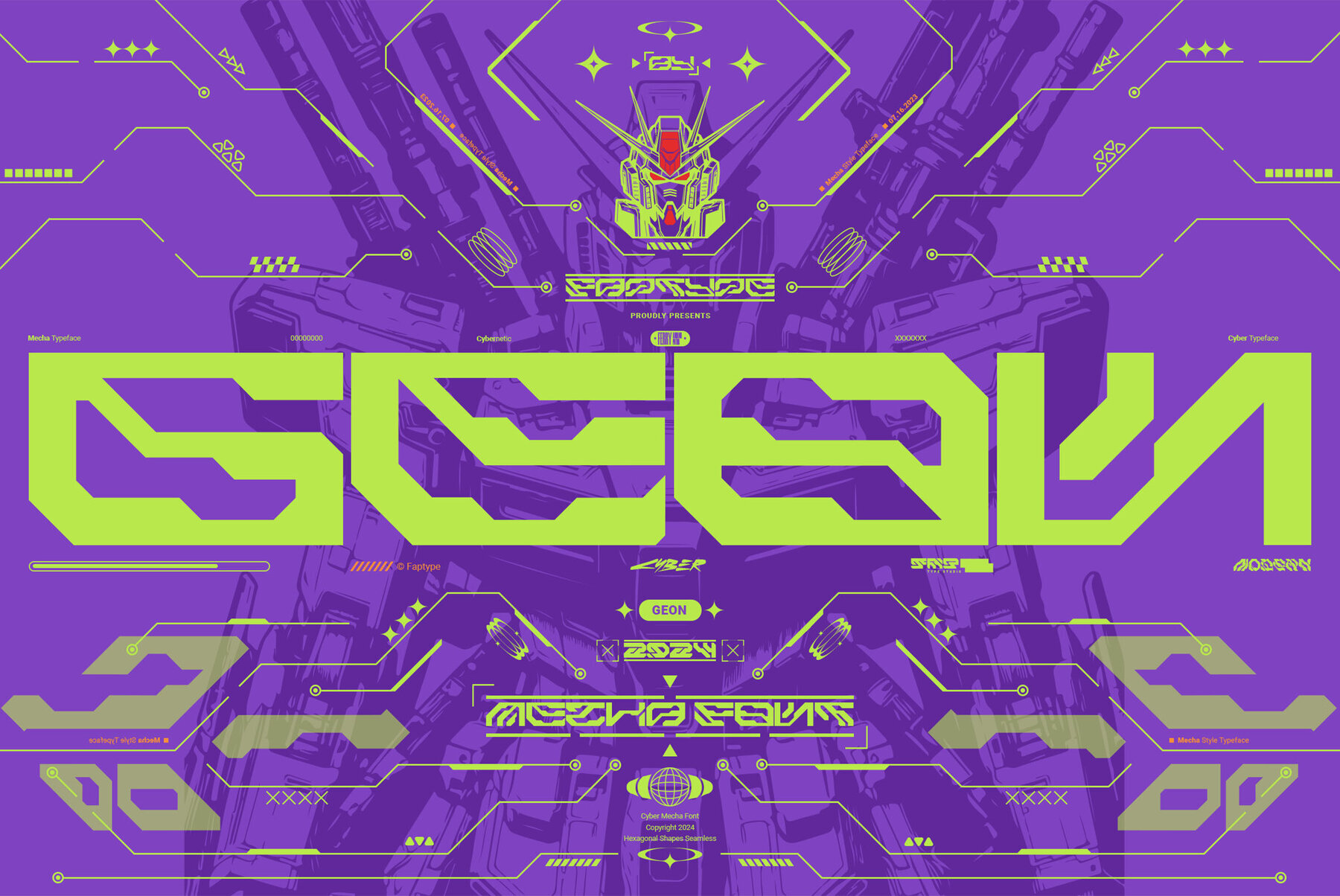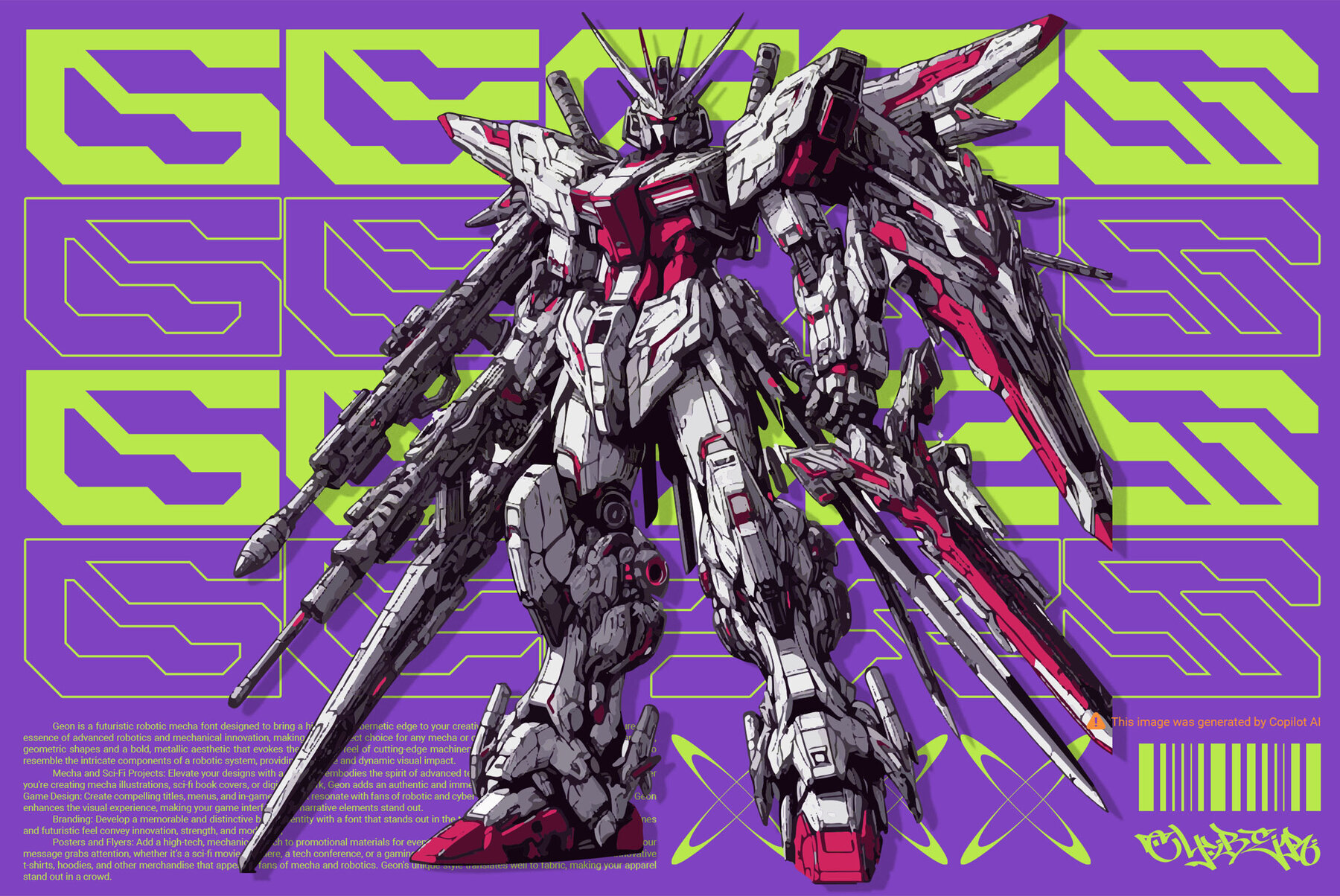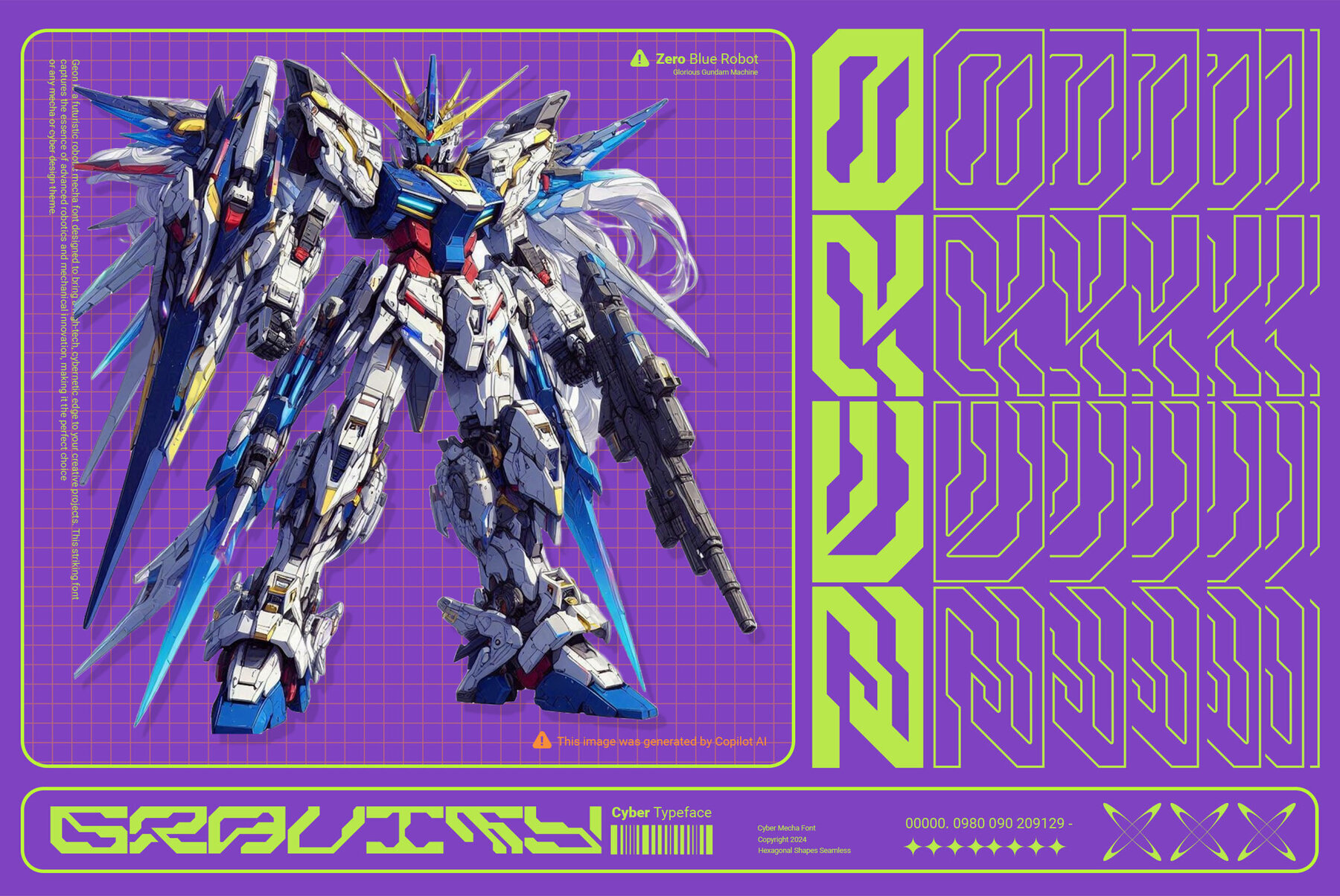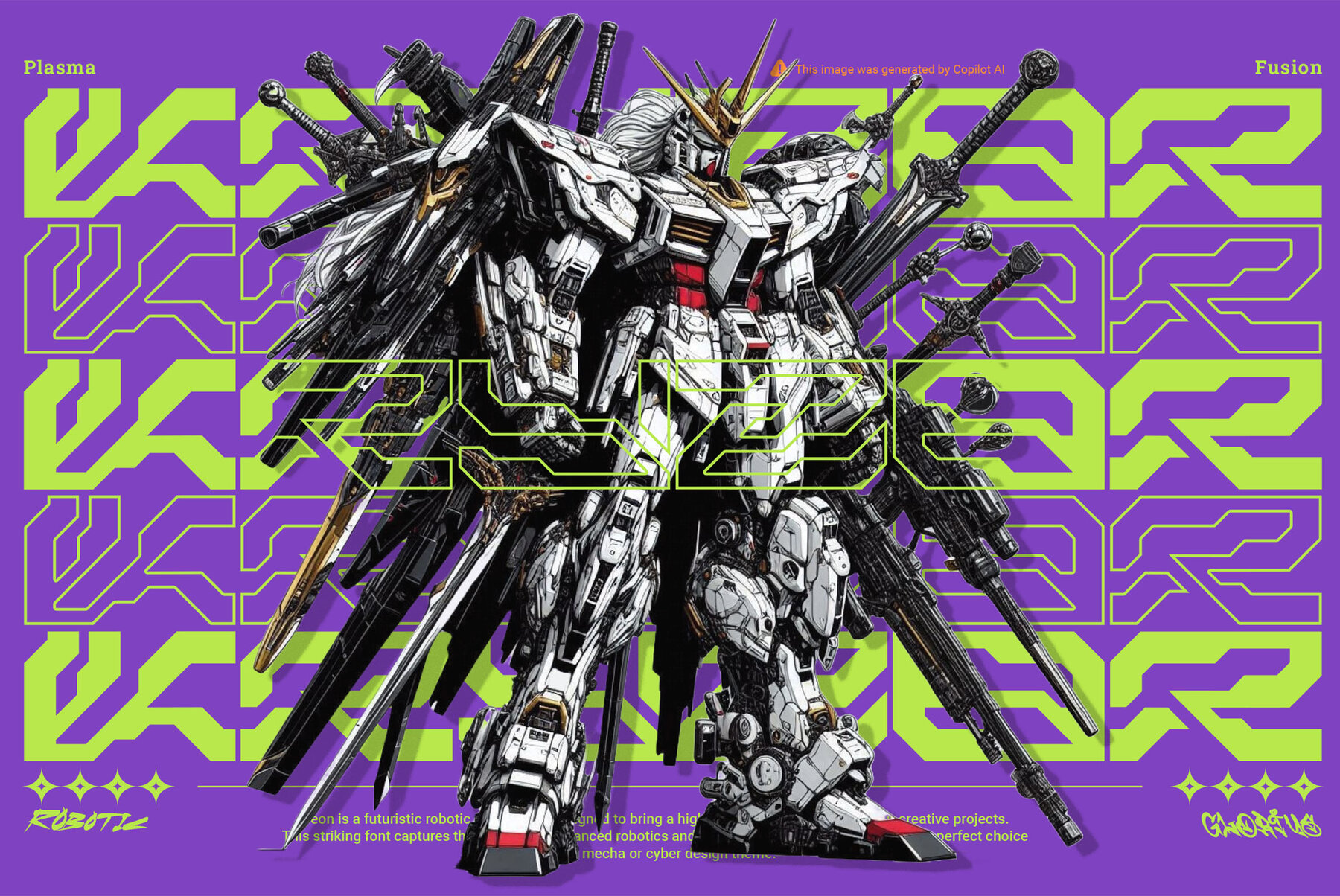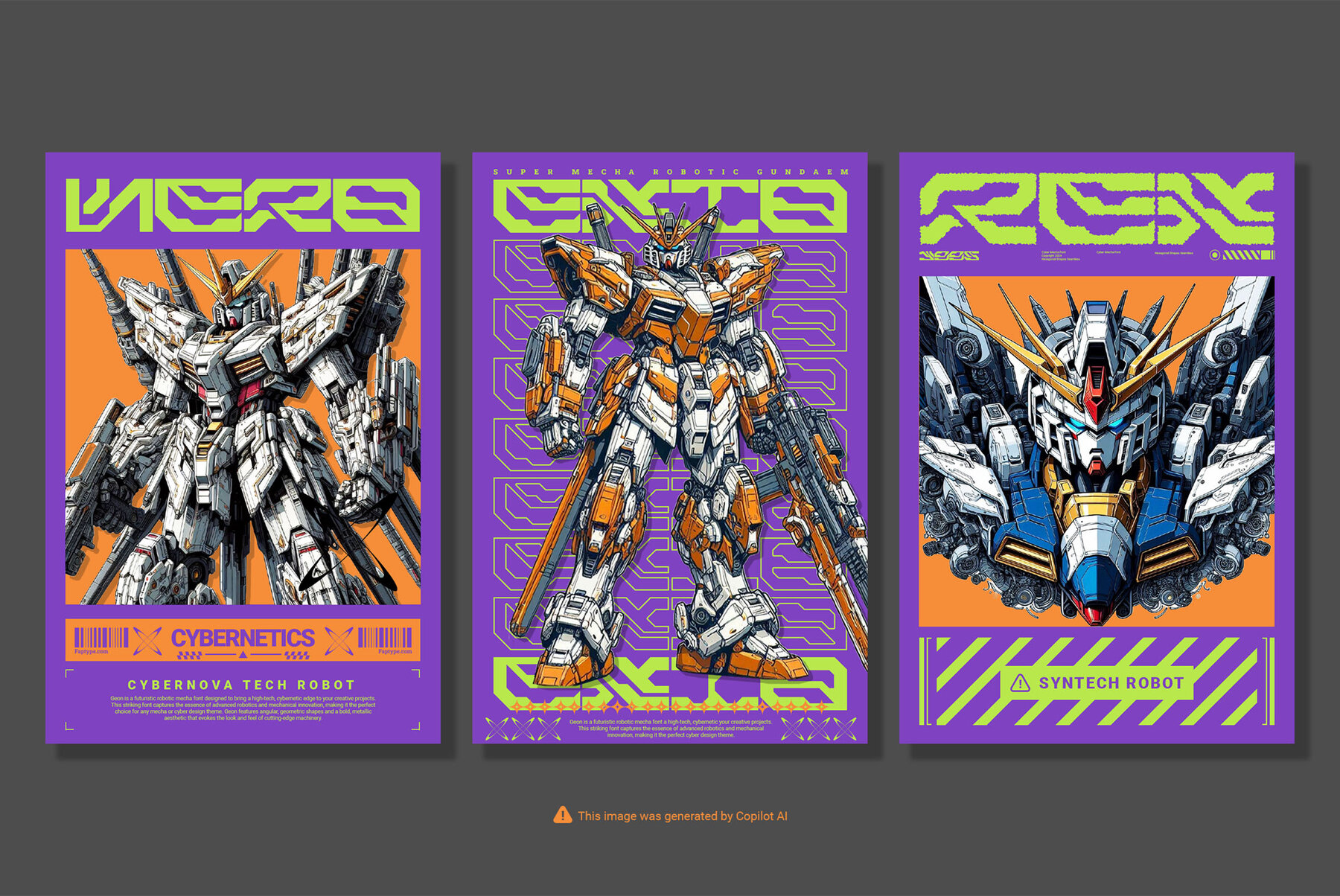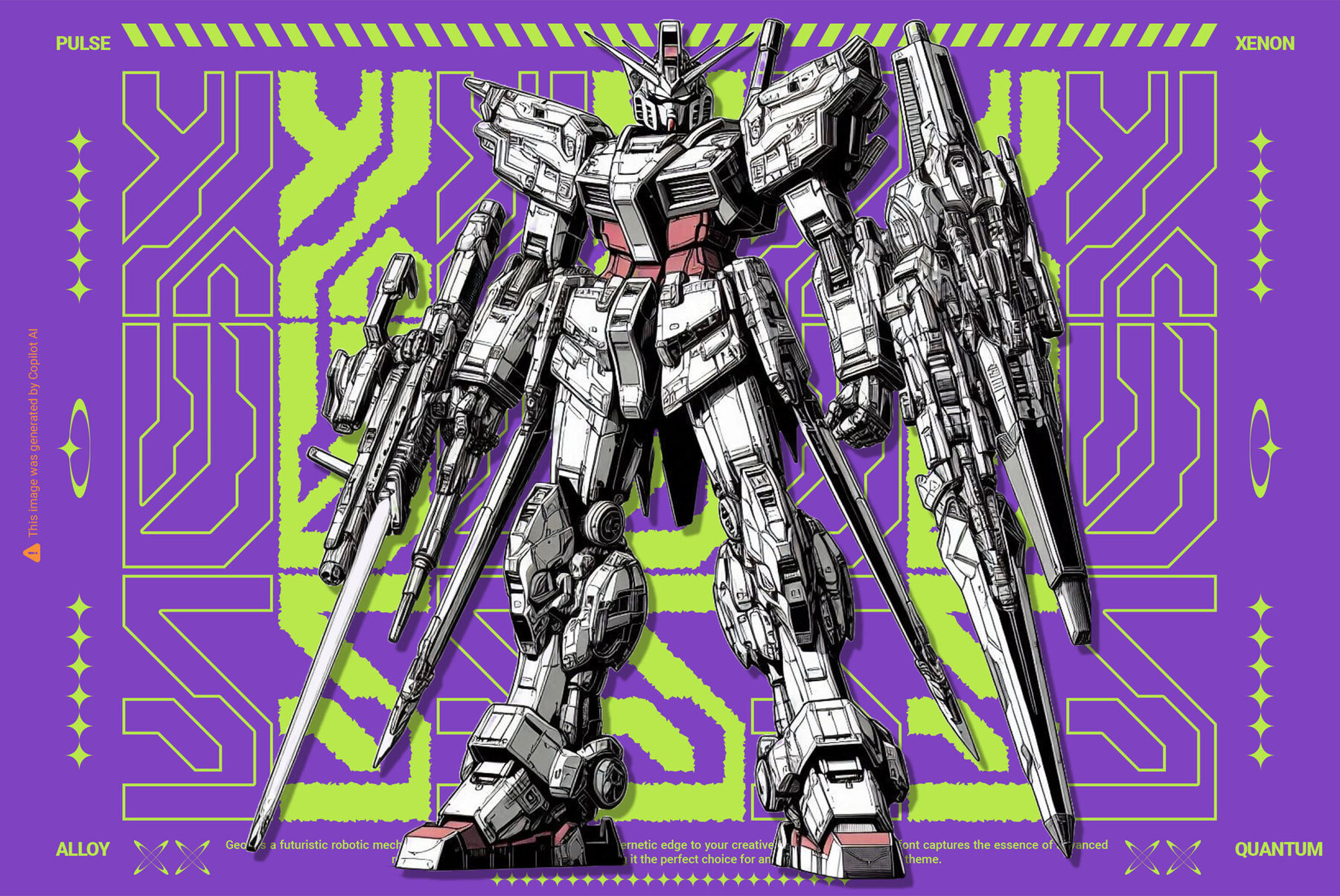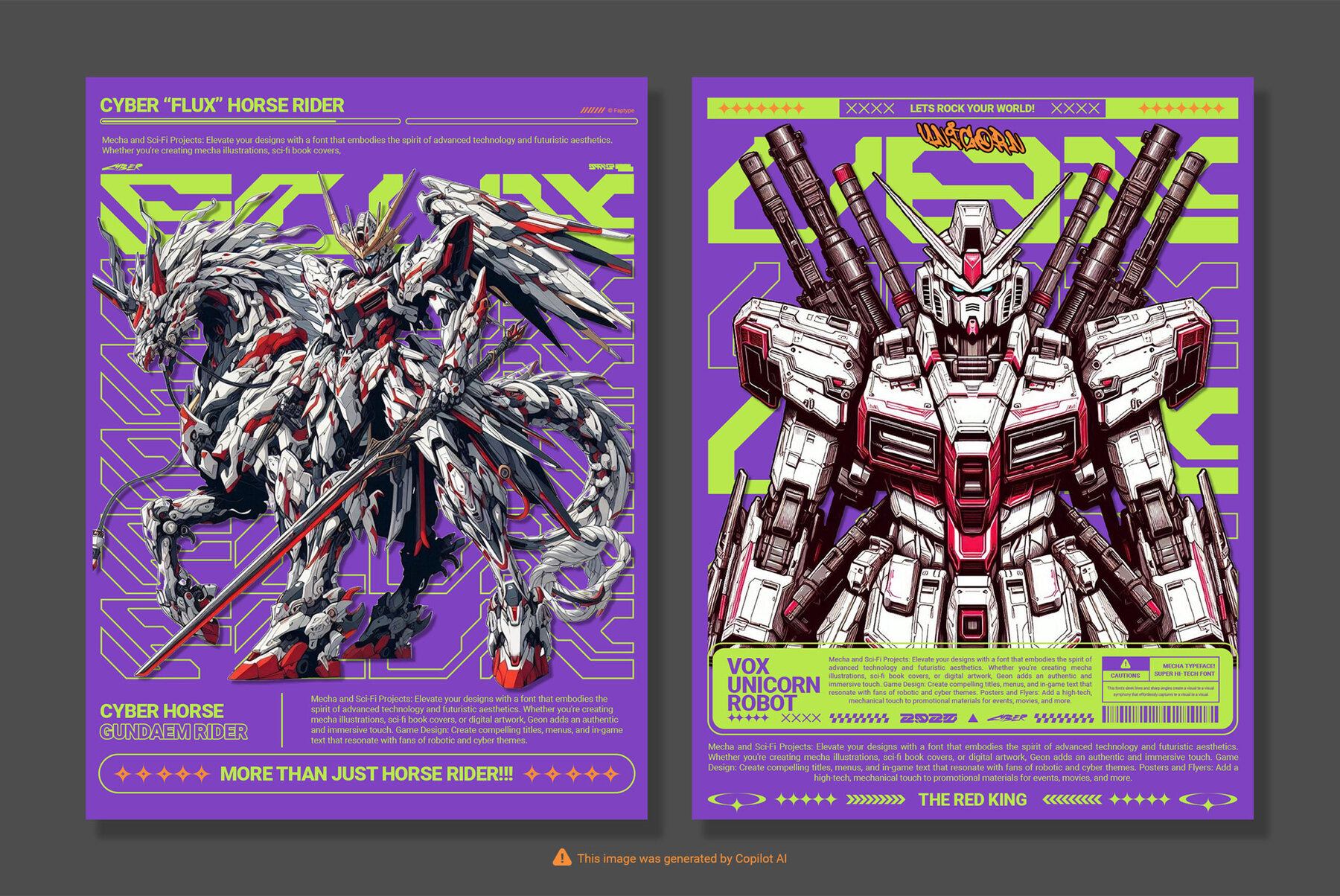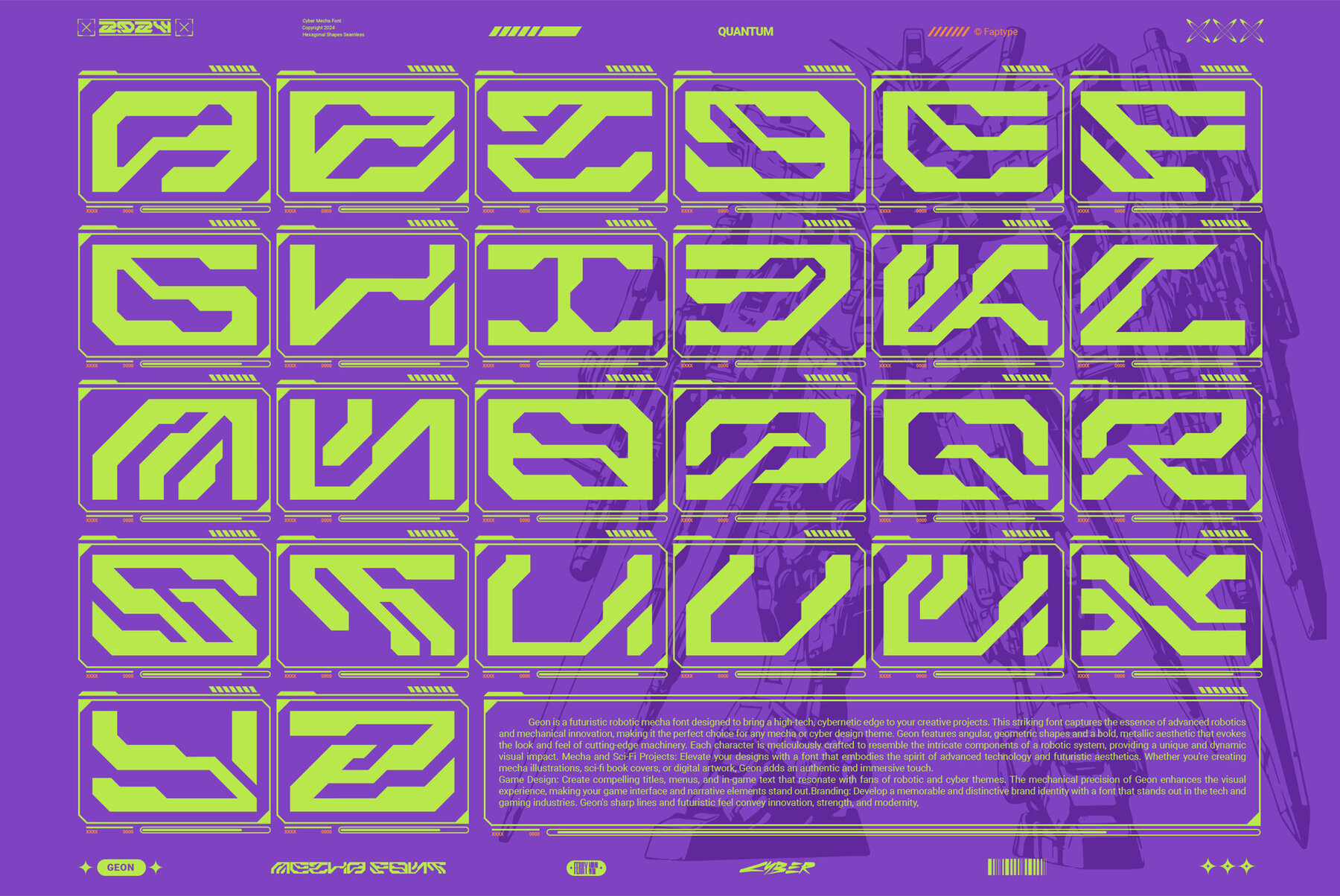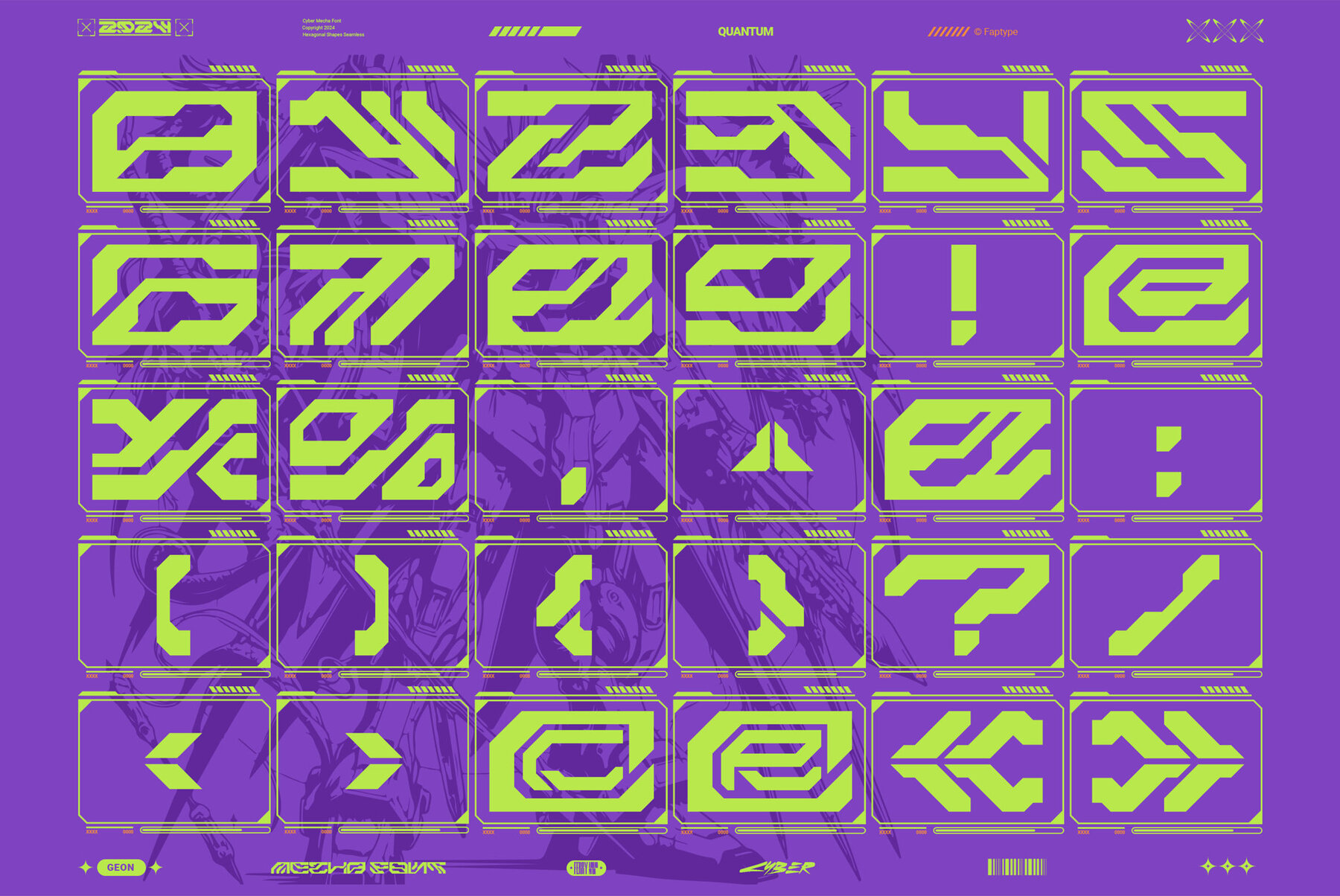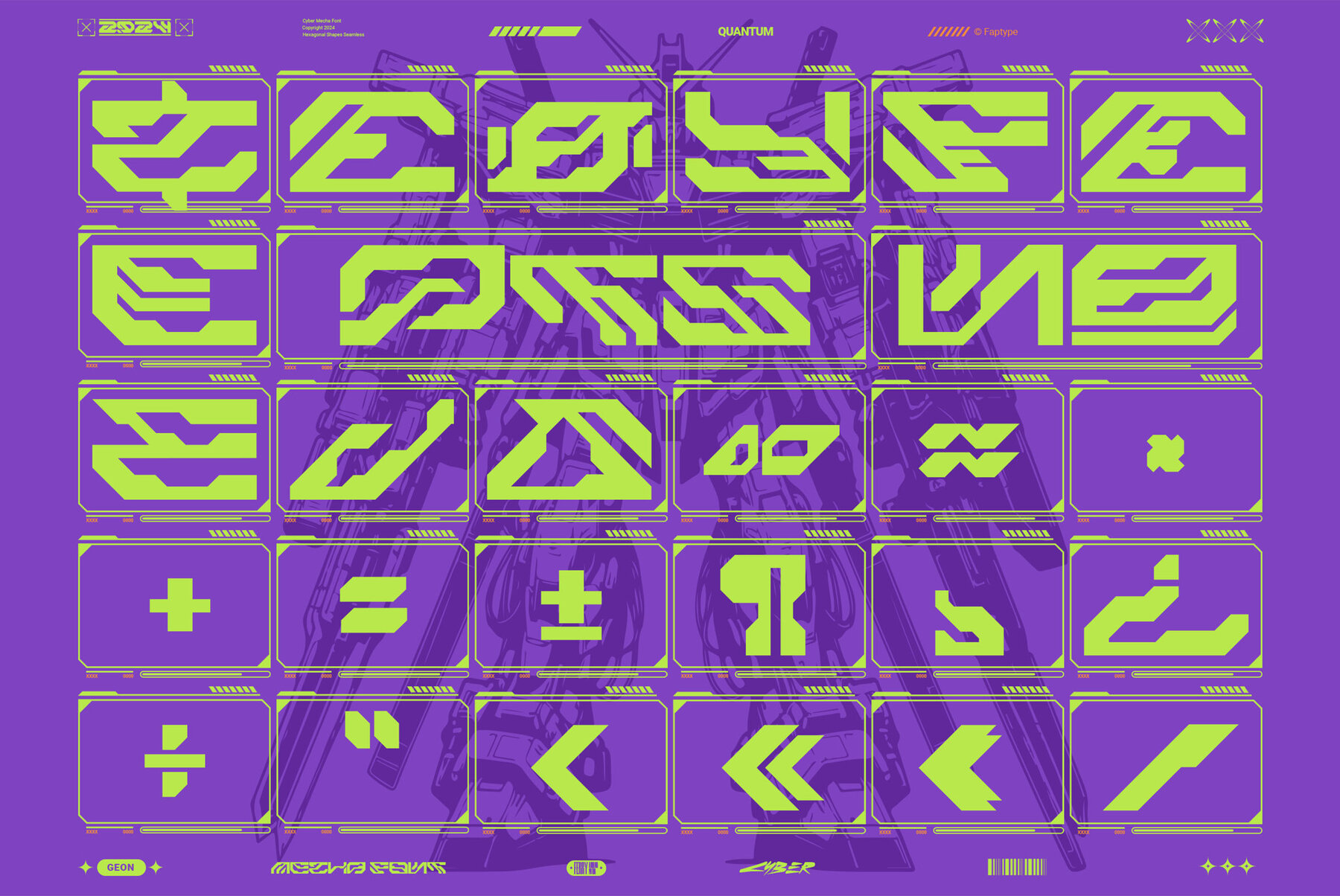
Geon Font
Geon is a futuristic mecha font designed to bring a high-tech, cybernetic edge to your creative projects. This striking font captures the essence of advanced robotics and mechanical innovation, making it the perfect choice for any mecha or cyber design theme. Geon features angular, geometric shapes and a bold, metallic aesthetic that evokes the look and feel of cutting-edge machinery. Each character is meticulously crafted to resemble the intricate components of a robotic system, providing a unique and dynamic visual impact. Geon’s design is inspired by the intricate and angular forms of robotic components, offering a unique aesthetic that stands out. Suitable for a wide range of projects from digital media to print, Geon adapts seamlessly to various contexts. Perfect for: Embrace the power and precision of advanced robotics with Geon, the ultimate font for mecha and cyber-themed designs. Whether you're working on a high-stakes game, a cutting-edge tech brand, or any project that demands a futuristic touch, Geon delivers the perfect combination of strength, style, and innovation. Transform your creative vision into reality with Geon, and make a bold statement in the world of design. Geon features: